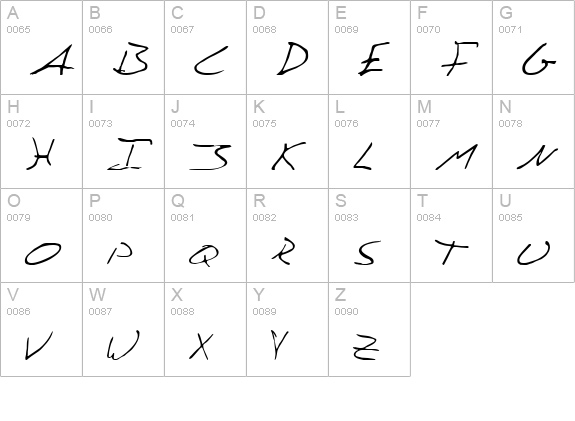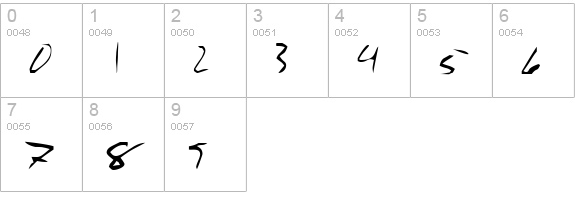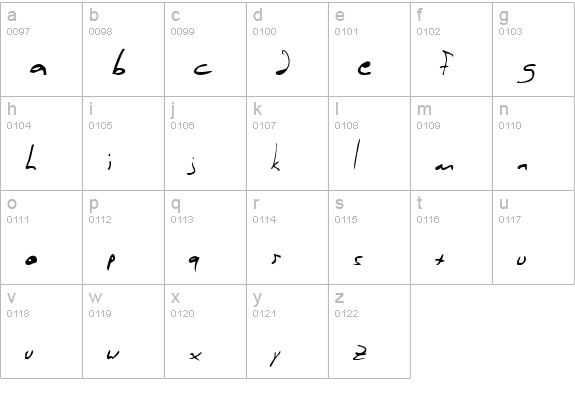
Rasputin's Handwriting Font Details
Introducing Rasputin's Handwriting, a captivating and enigmatic font that exudes a sense of mystery and intrigue. Inspired by the unique penmanship of the enigmatic Russian mystic Grigori Rasputin, this typeface beautifully captures the essence of his handwritten notes and letters. Rasputin's Handwriting is characterized by its flowing strokes, irregular letterforms, and a touch of whimsy. Each letter carries the weight of history, evoking the enigmatic personality that made Rasputin a controversial figure in Russian history. Whether you're designing a historical project, creating an evocative headline, or simply want to add a touch of intrigue to your designs, this font will surely captivate your audience. What makes Rasputin's Handwriting even more enticing is that it is freely available to download at FontsMarket.com. Yes, you heard it right - this extraordinary font can be yours without any cost. So, whether you're a professional designer, a student, or simply someone with a passion for typography, you can now access this unique typeface and unleash your creativity without any financial constraints. With its versatility and remarkable attention to detail, Rasputin's Handwriting is suitable for a wide range of projects. From vintage-themed designs to book covers, movie posters, branding materials, and everything in between, this font will undoubtedly add a touch of authenticity and charm to your work. Don't miss the opportunity to experience the allure of Rasputin's Handwriting font. Download it for free at FontsMarket.com and let the mysticism of Grigori Rasputin's penmanship infuse your designs with an air of intrigue and elegance.